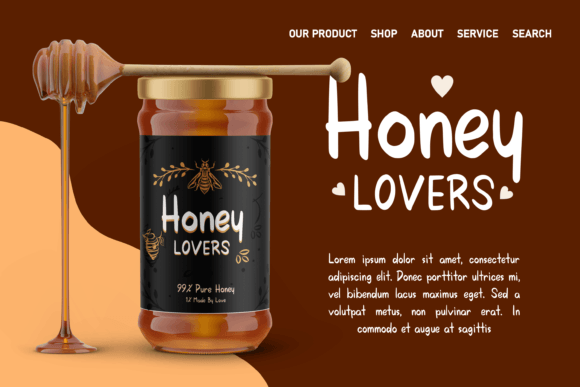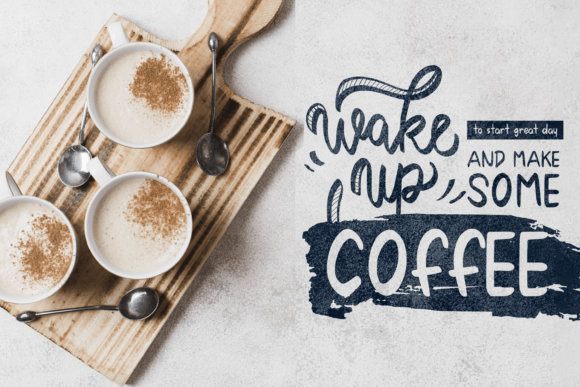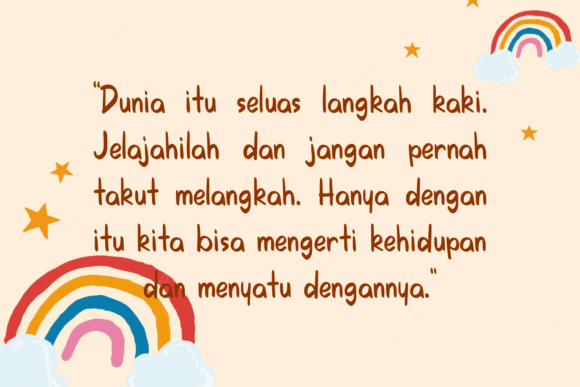
Introduction to Emily Hills Font
Have you ever found yourself stuck in a creative rut, unable to find the perfect font to bring your project to life? That was me, until I stumbled upon the delightful Emily Hills Font. Its quirky charm and playful nature instantly sparked my imagination, and I knew I had to share it with fellow designers.
As a valuable design resource, Emily Hills Font offers a unique blend of whimsy and sophistication, making it perfect for a wide range of creative projects, from product packaging and branding to magazines and social media.
Key Features of Emily Hills Font
- High-quality design resource for creative projects, suitable for various applications including graphics and digital art.
- Unique and distinctive design, featuring a transparent background that allows for seamless integration with any design or image.
- High-resolution design, suitable for use in high-quality prints, digital displays, and other creative projects.
- Designed to be versatile and adaptable, making it an excellent choice for a wide range of creative projects and applications.
- Supports various languages, ensuring that it can be used in multilingual creative projects and designs.
Honest Review: Emily Hills Font
As a designer, I’m always on the lookout for unique and high-quality design resources to elevate my creative projects. Recently, I stumbled upon the Emily Hills Font, and I’m excited to share my honest review with you.
- High-quality design: The Emily Hills Font is beautifully crafted with a clear, elegant style that’s perfect for various design projects.
- Transparent background: The font’s transparent background makes it easy to use in various design scenarios, from logos to digital art.
- Limited character set: The font only includes a limited character set, which may not be suitable for extensive writing or long-form content.
- No webfont support: The font doesn’t seem to have webfont support, which can make it difficult to use in web-based projects.
Overall, I think the Emily Hills Font is a great addition to any designer’s toolkit, especially for creative projects that require a touch of elegance and sophistication. While it has some limitations, its high-quality design and free download make it a worthwhile resource to explore.
How to Use Emily Hills Font
The Emily Hills Font is a versatile and elegant design resource that can elevate your creative projects to the next level. With a transparent background and high-quality typography, this font is perfect for designers looking for a unique and professional touch.
Getting the Most Out of Emily Hills Font
To get the most out of the Emily Hills Font, experiment with different font sizes, colors, and combinations. This font is highly versatile and can be used in a variety of creative projects.
The Emily Hills Font is perfect for:
- Business cards and marketing materials
- Blog posts and social media graphics
- Infographics and data visualizations